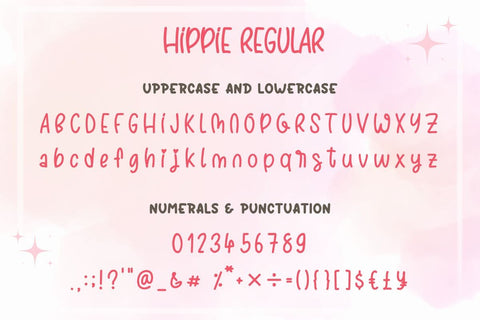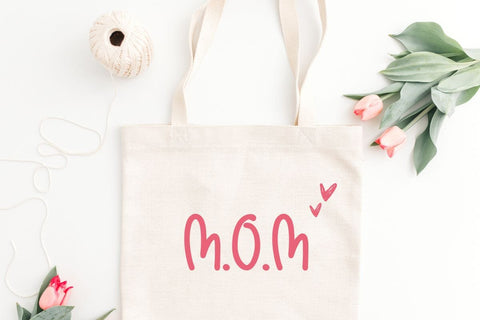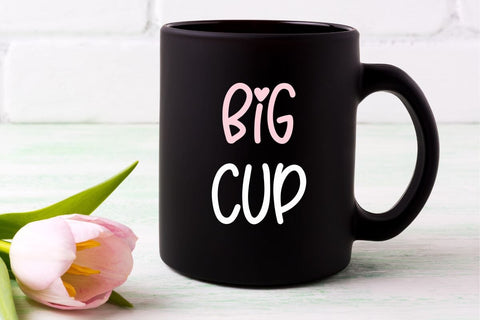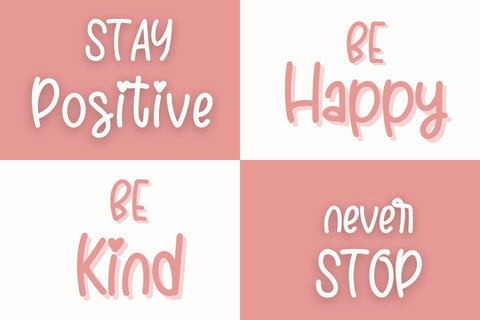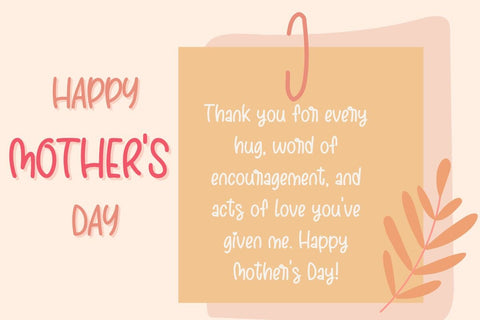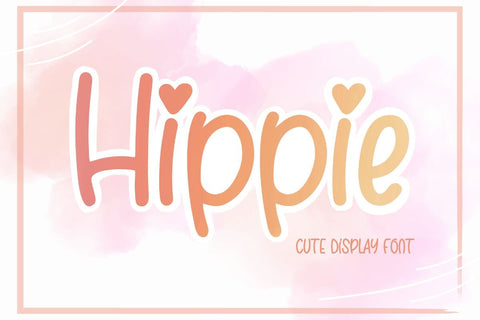
Hippie Cute Handwritten Font | Heart Accent Display Font for Quotes, Sublimation, Mother's Day, Cricut Projects
Let your creativity bloom with Hippie, a playful handwritten font with heart-shaped accents that radiate love and positivity. This cheerful font is perfect for motivational quotes, Mother's Day gifts, stickers, mugs, greeting cards, tote bags, and more!
Full Uppercase & Lowercase
Numbers & Punctuation
Perfect For:
Motivational quotes
Mother's Day designs
Print-on-demand gifts
Journaling and scrapbooking